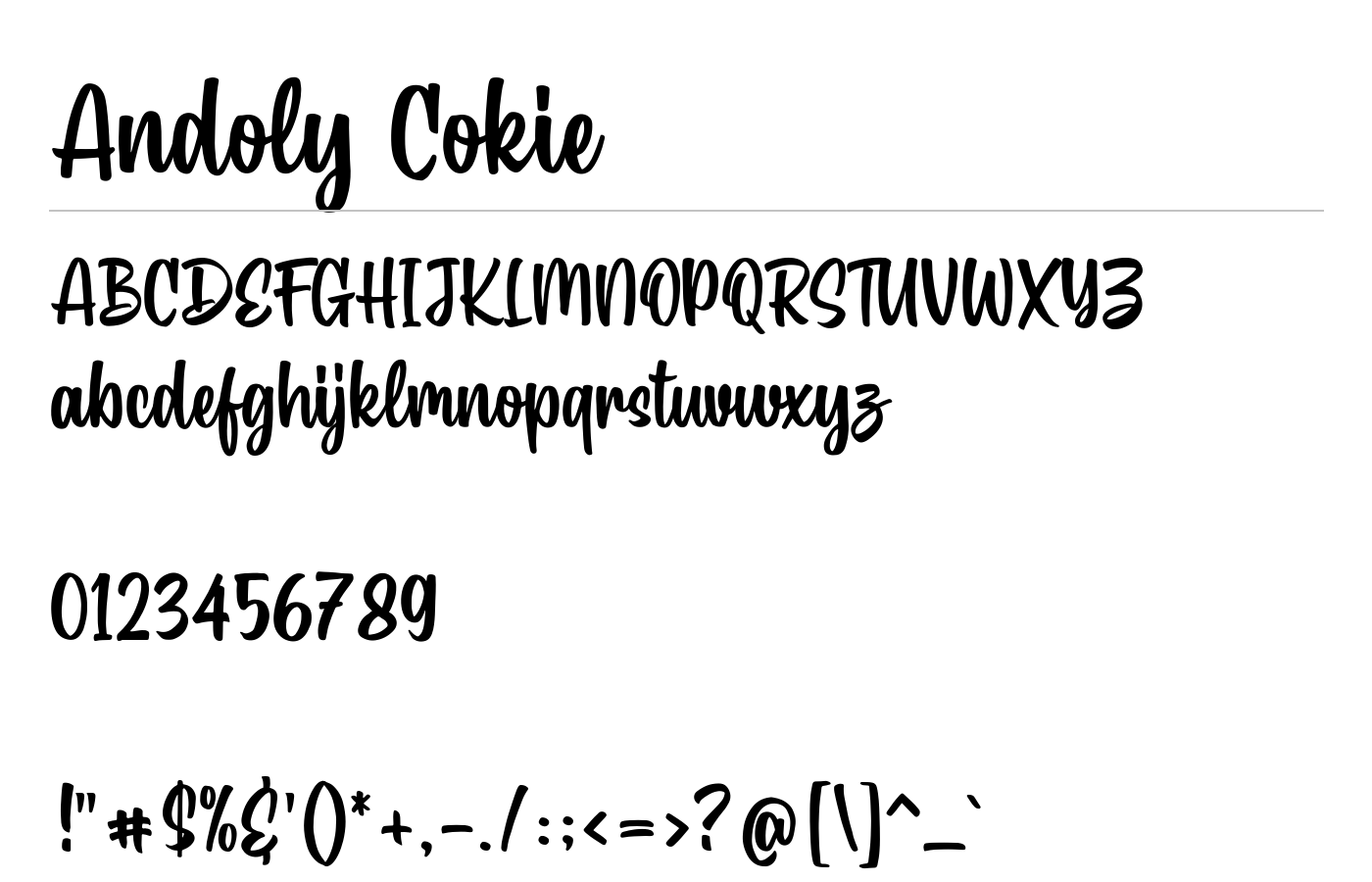
Andoly Cokie is a lively, handwritten script font with a smooth, casual style that feels friendly and approachable. Its medium weight and slightly condensed forms, combined with playful letter shapes and a uniform stroke, make it perfect for adding a personal, informal touch to branding, social media graphics, or creative projects. This font works well in headlines and short texts where a warm, engaging vibe is desired.
Andoly Cokie Font
About Andoly Cokie Font
| Font family | Andoly Cokie Font |